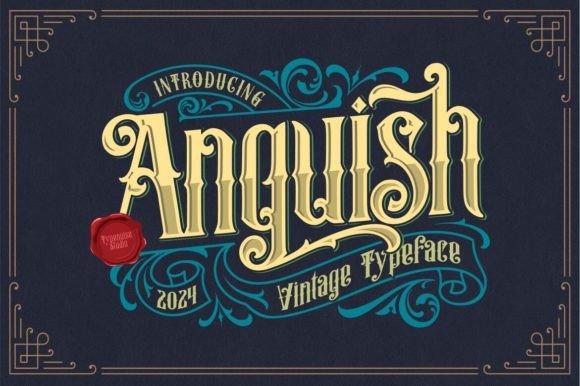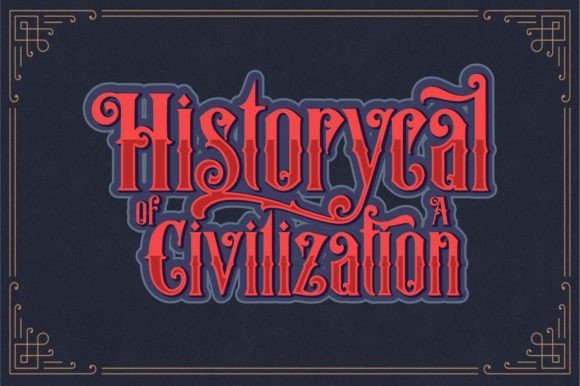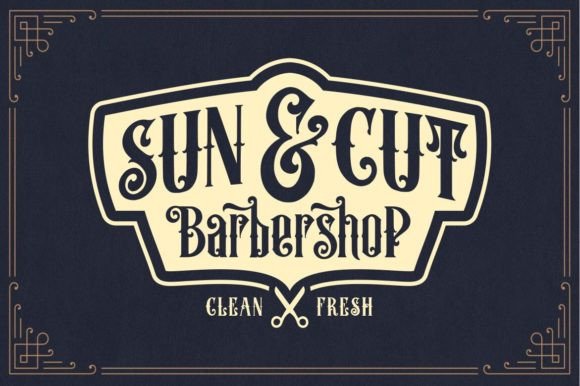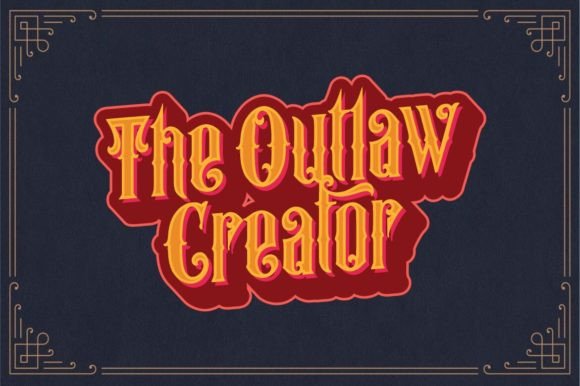
Anguish Font: Vintage Blackletter for Unique Logo Design & Posters
About the Anguish Font
Step up your design game with Anguish Font, a font that exudes confidence and style. Anguish Vintage Typeface is an amazingly unique blackletter font with a strong, classic and vintage vibe. Get inspired by its original feel and use it for vintage logo, tattoo designs, flyer, posters, book covers, albums and more!
Anguish excels in display applications such as headlines, logos, and short text blocks on posters or packaging. Its strong, vintage character lends itself well to projects requiring a bold, nostalgic feel—think vintage branding, rock music album art, or tattoo designs. Avoid using it for body text or lengthy paragraphs; its intricate details and high x-height make it less legible at smaller sizes.
Pairing Anguish effectively requires considering its blackletter heritage. A clean sans-serif like Montserrat or a geometric sans-serif such as Futura would provide a strong contrast and enhance readability when used alongside it for secondary text. For a more cohesive, vintage-inspired approach, consider pairing it with a complementary serif such as Playfair Display.
Anguish’s personality is assertive and classic, with a rebellious edge. It is best suited for brands projecting strength, history, and a touch of nonconformity. Avoid using it for projects requiring a soft, friendly, or minimalist aesthetic.